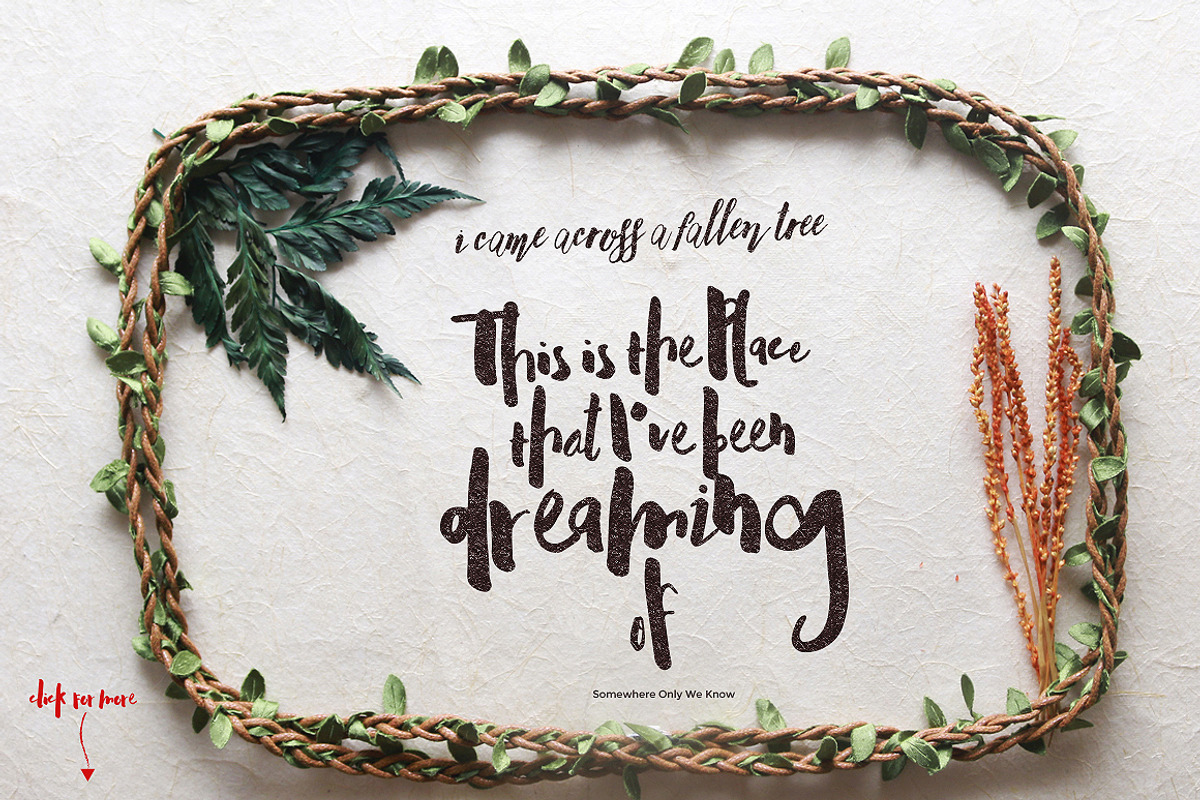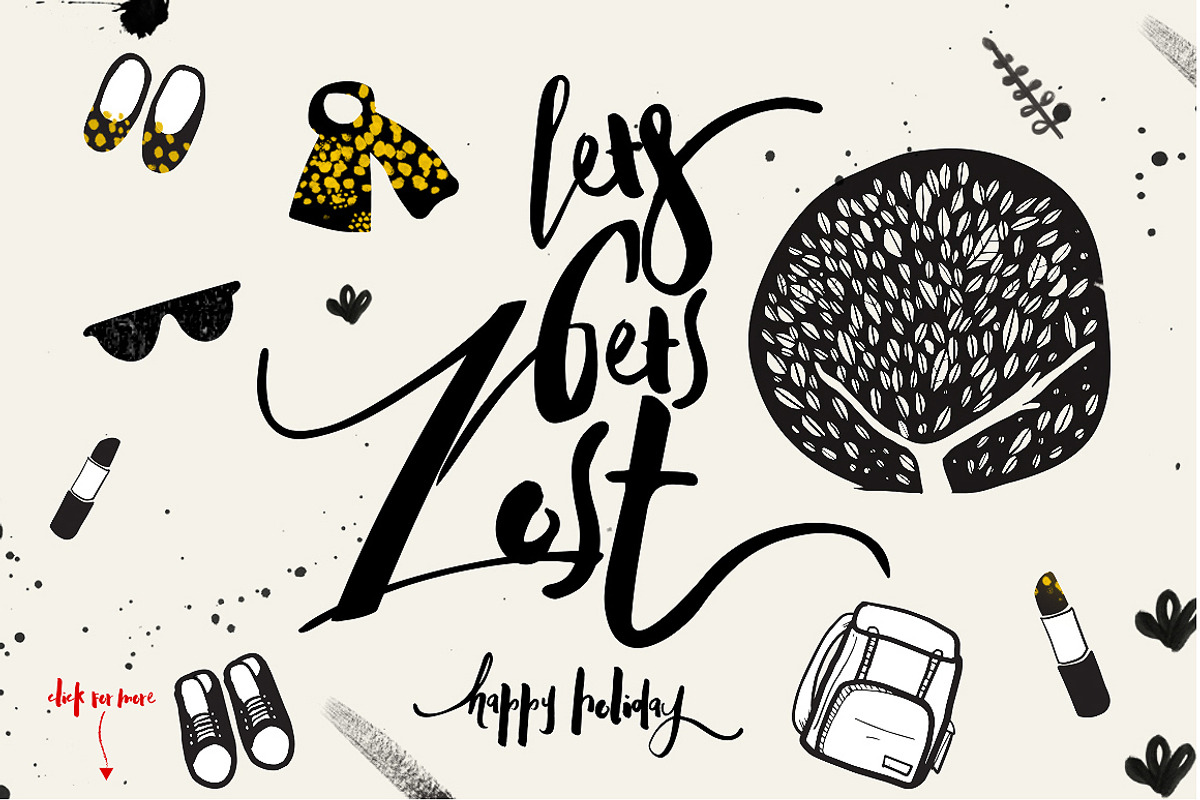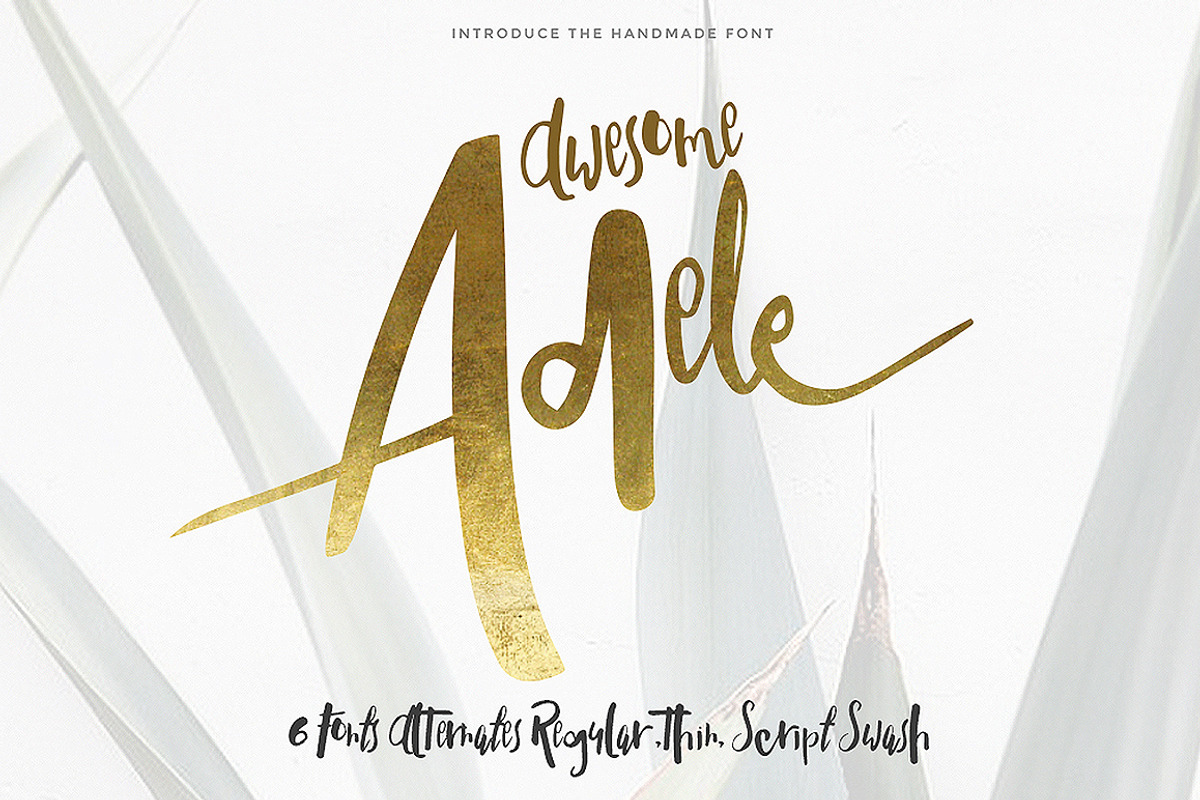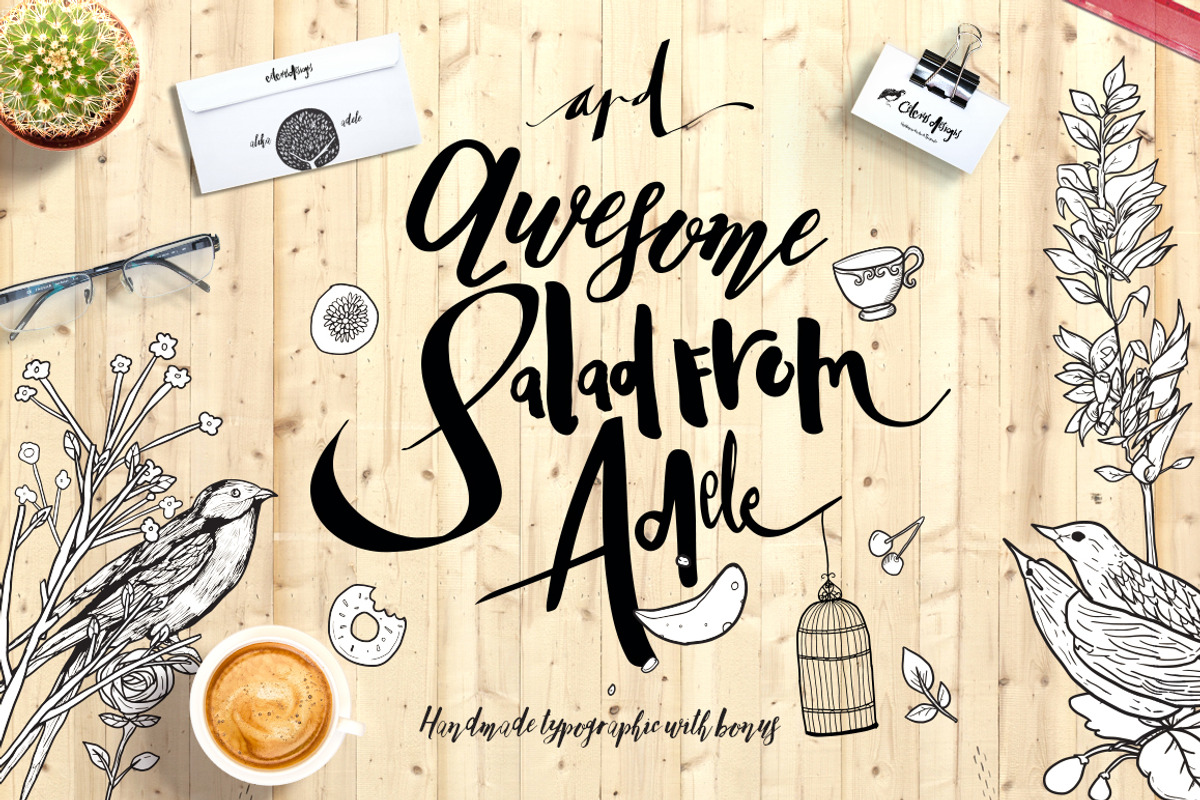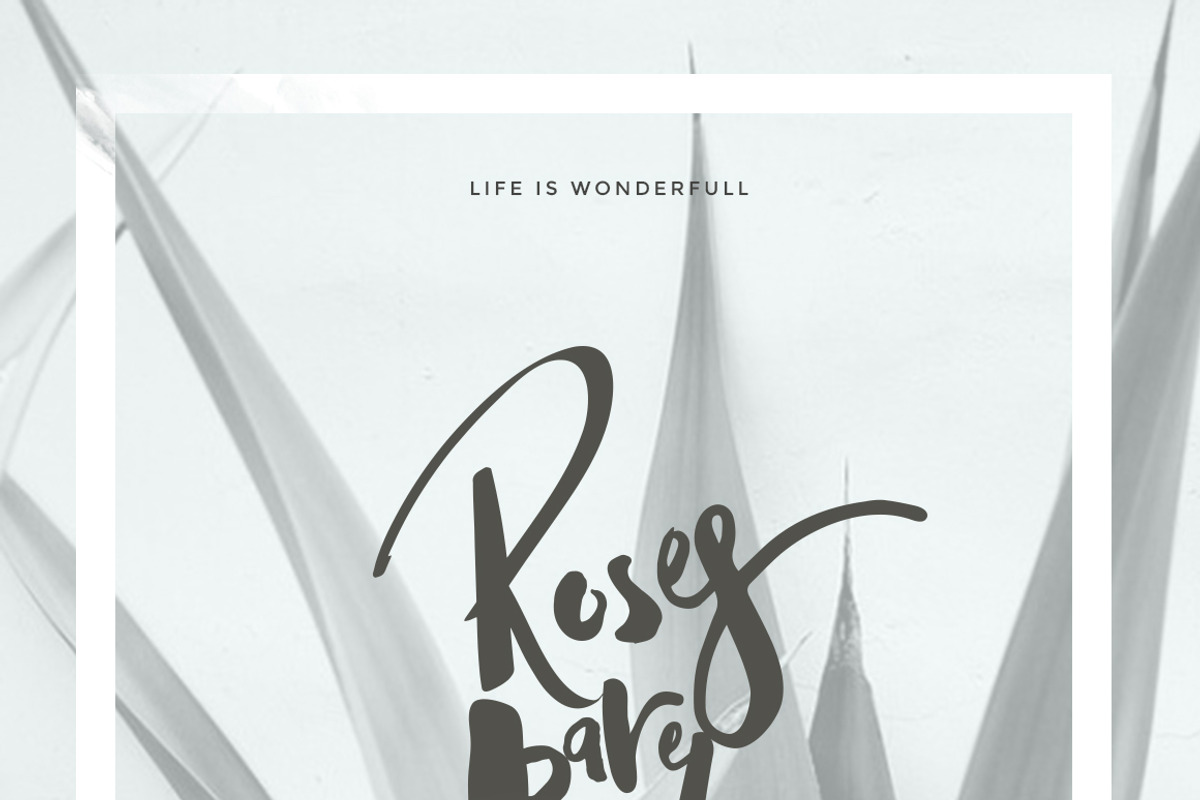
Adele 6 Fonts (70% off) by Fortunes Co is a font selected for branding, posters, packaging, typography.
- Welcome to new one, introduce with Awesome Typeface it's come with alternates, based inspired from manual doodle and practice hand drawn wit
Adele 6 Fonts (70% off) by Fortunes Co fits naturally into Branding, posters, packaging, typography.